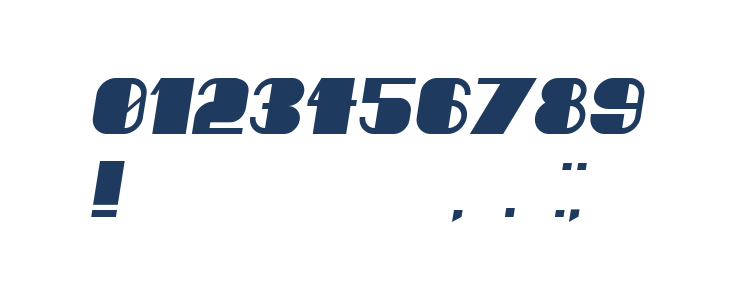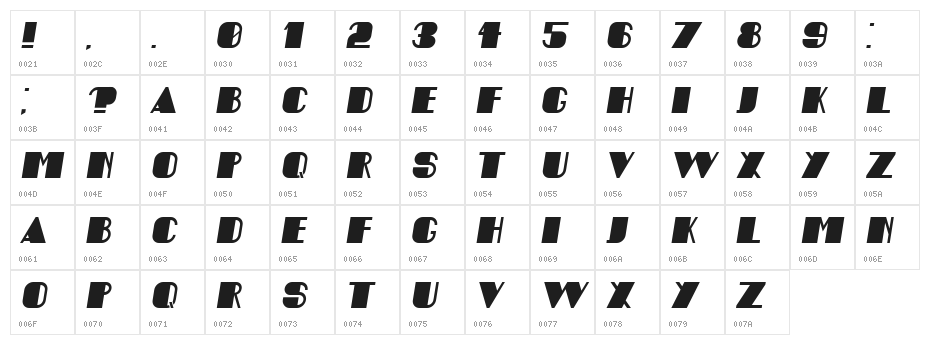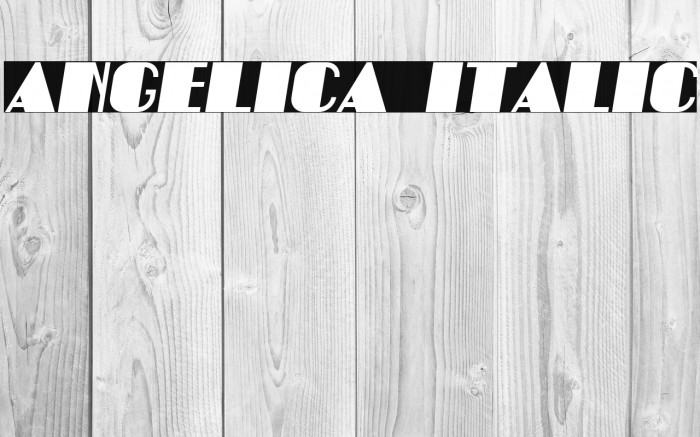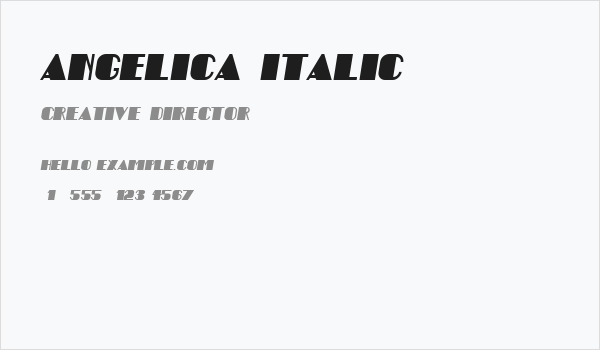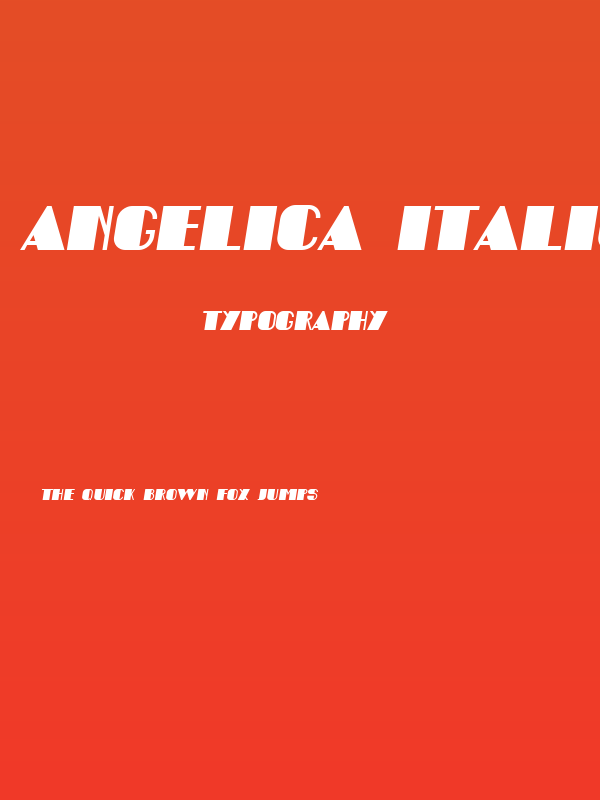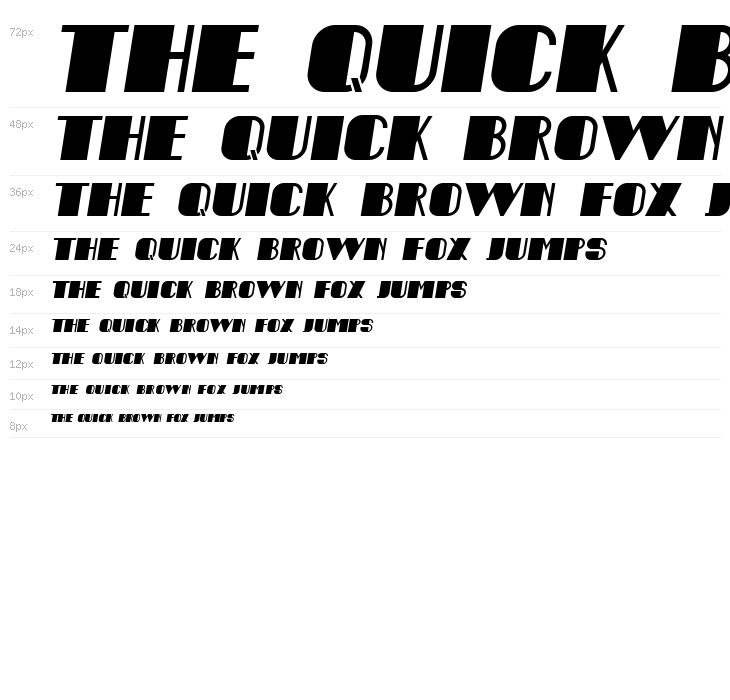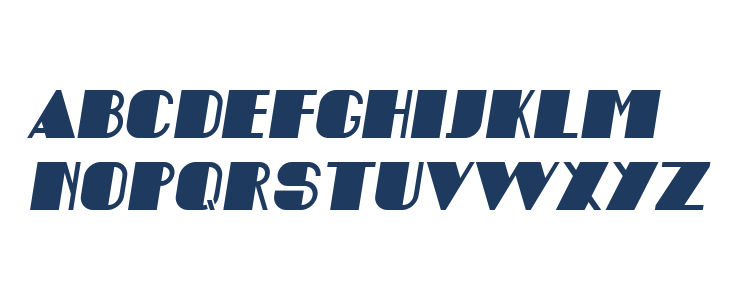
Angelica Italic Font
Angelica Italic Description
This font features a bold and italicized style with a modern and dynamic appearance. The characters are sharply angled, creating a sense of motion and energy. The uppercase and lowercase letters maintain a consistent slant, enhancing the italic effect. The numbers and special characters follow the same design principles, ensuring uniformity across all glyphs. The bold weight of the font makes it stand out, while the italic slant adds a touch of elegance and sophistication. The overall style is contemporary, making it suitable for projects that require a strong visual impact.
| Proposed Projects | Ideal for branding, advertising, headlines, and posters where a strong and energetic presence is desired. |